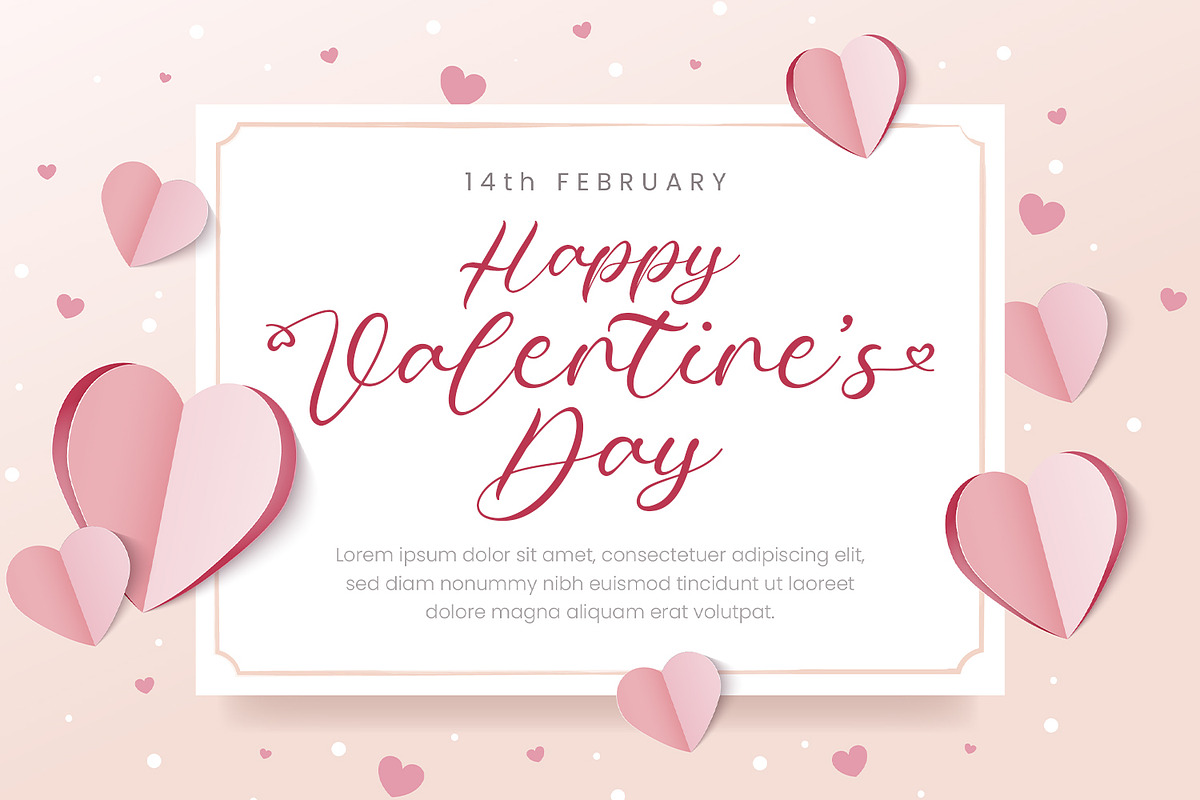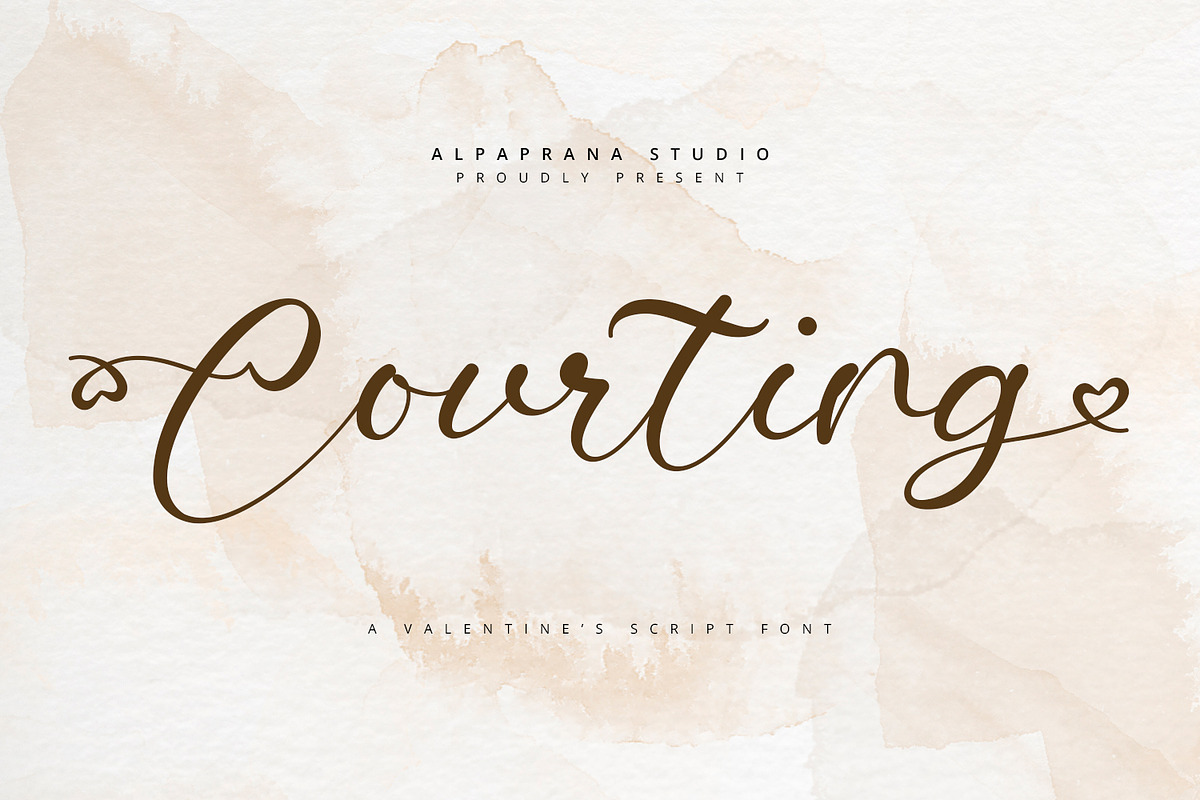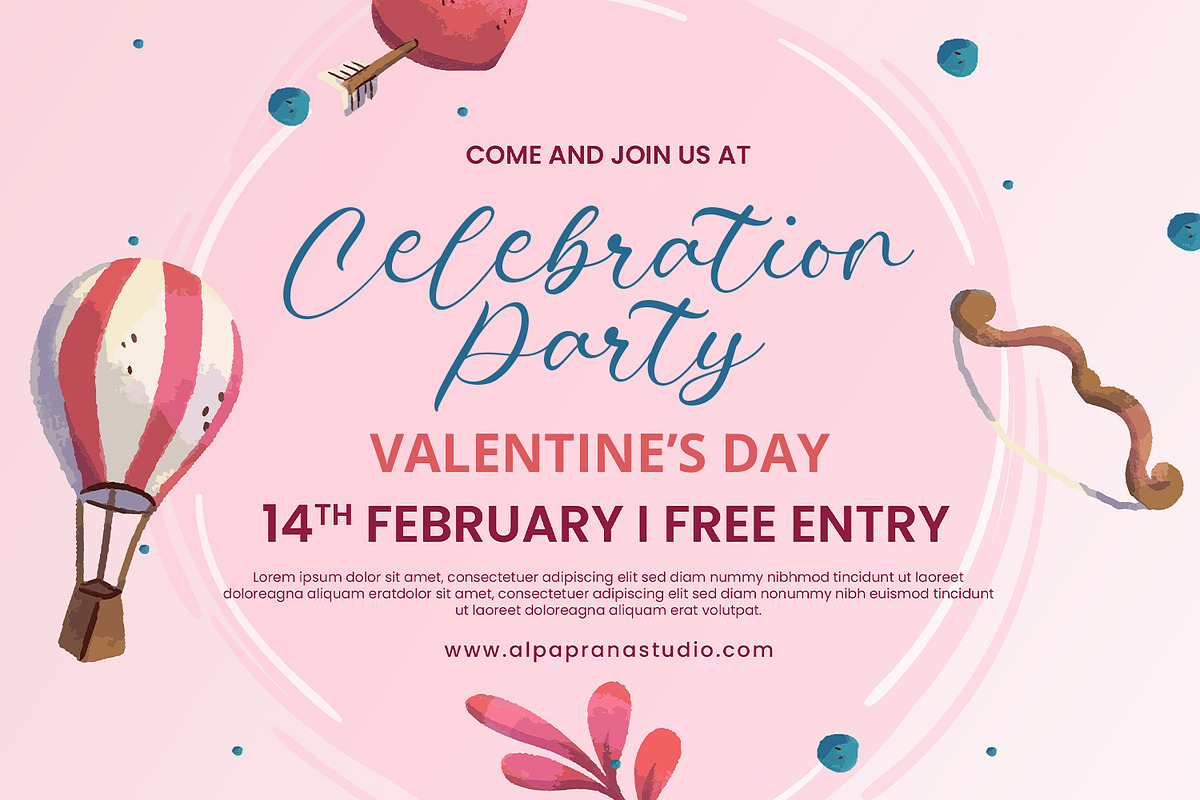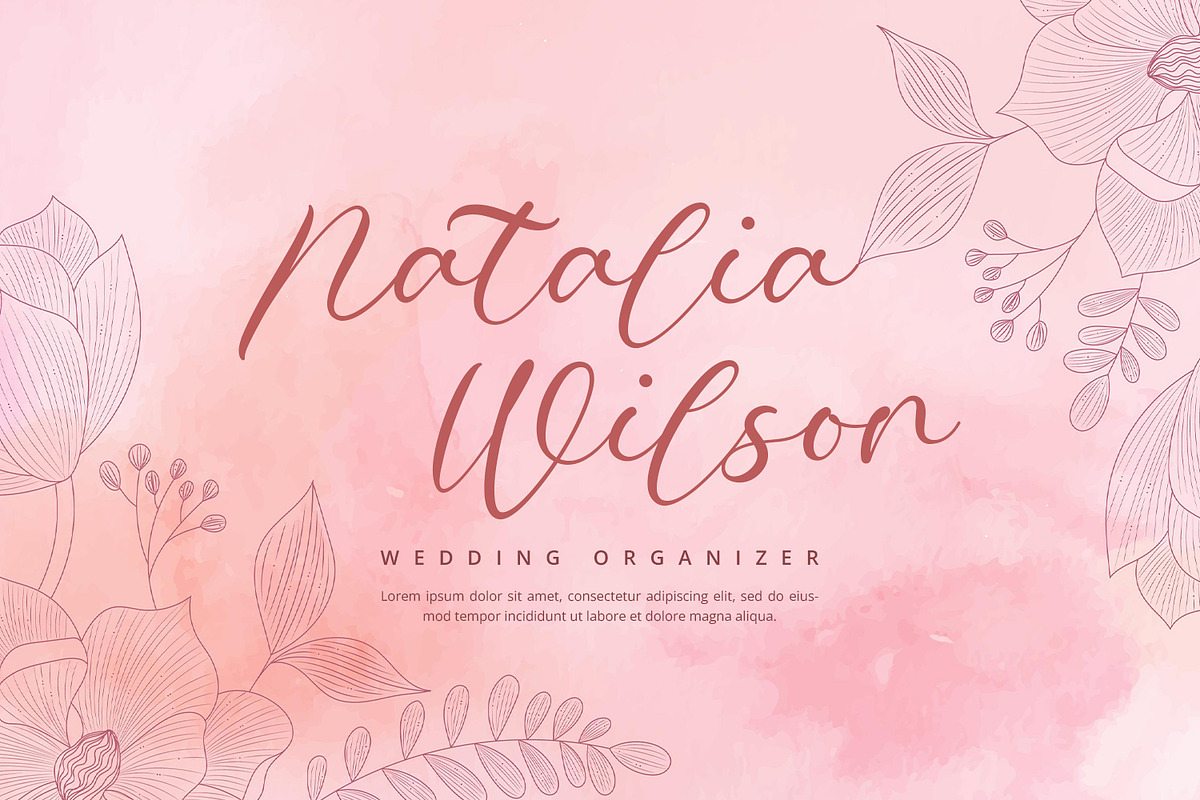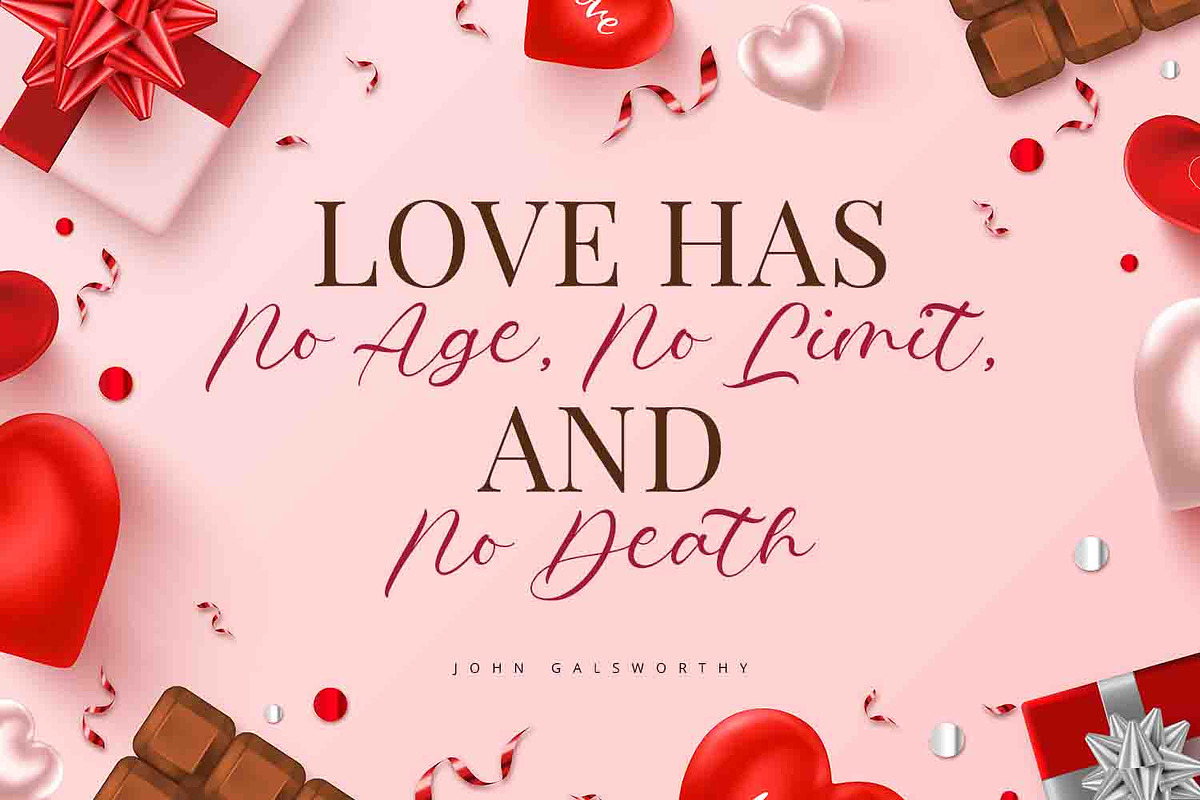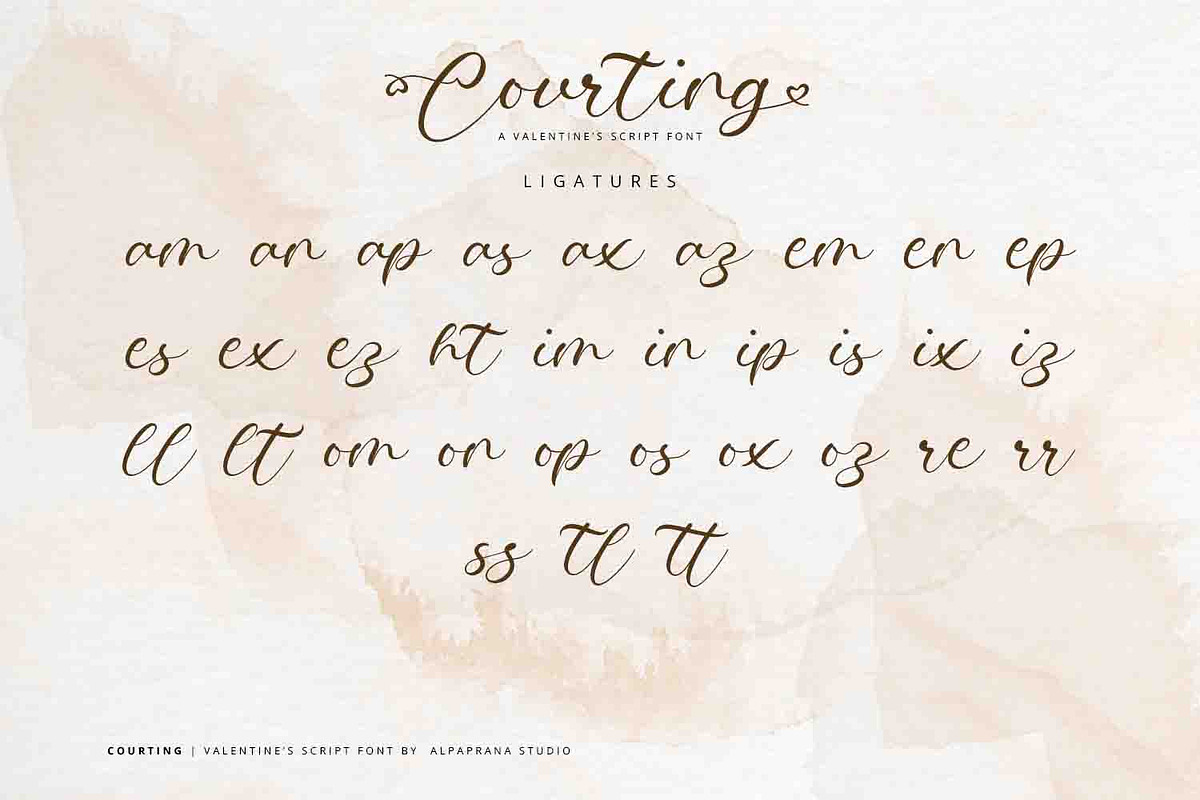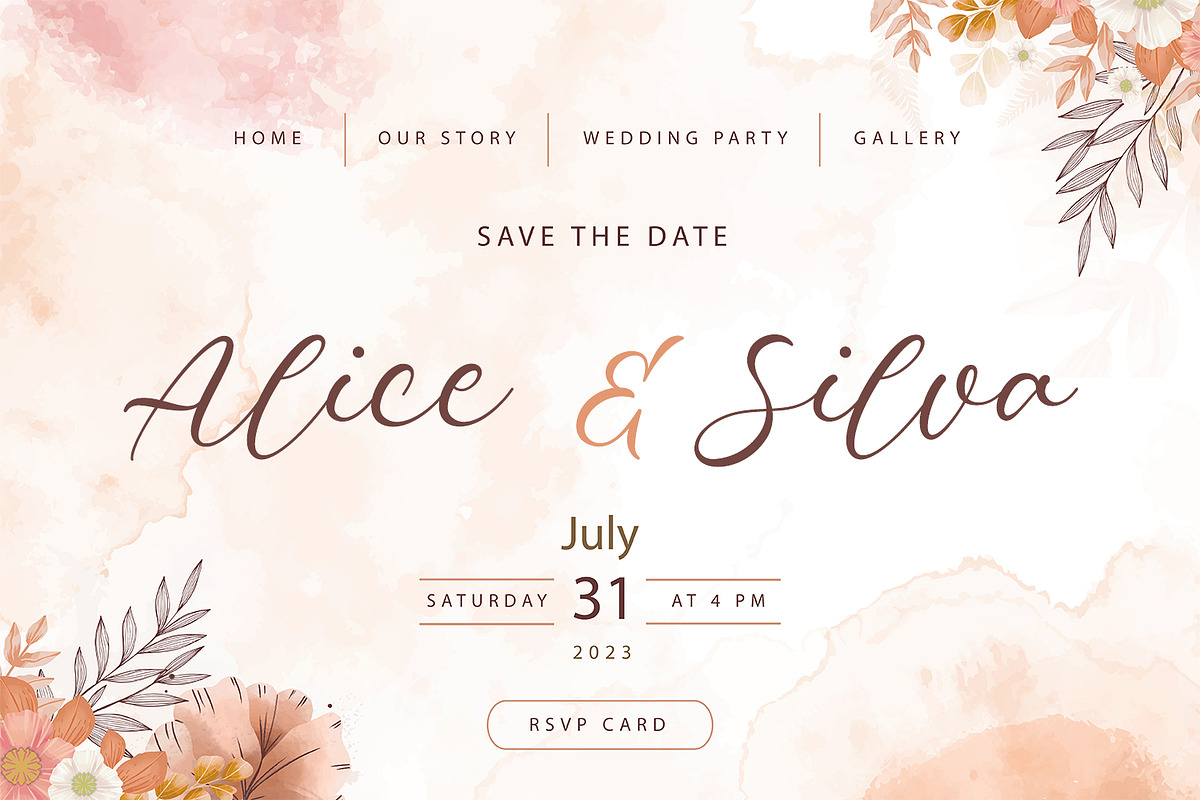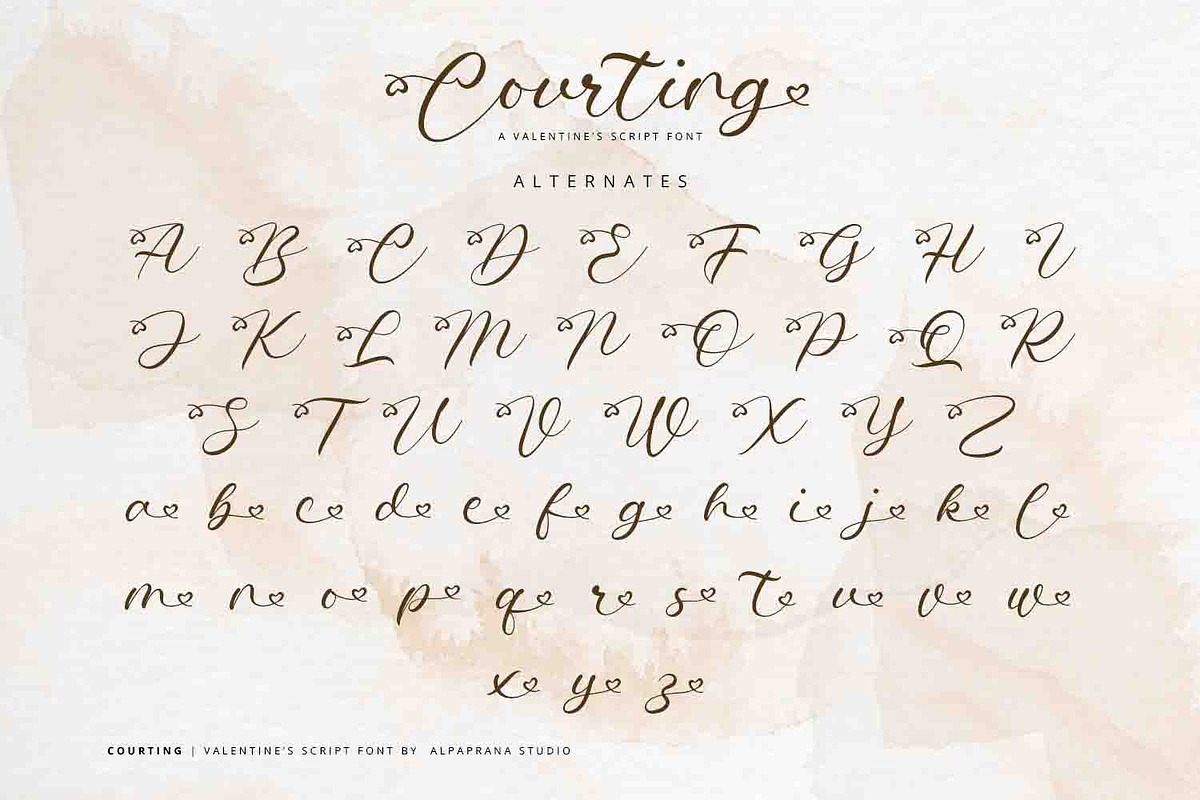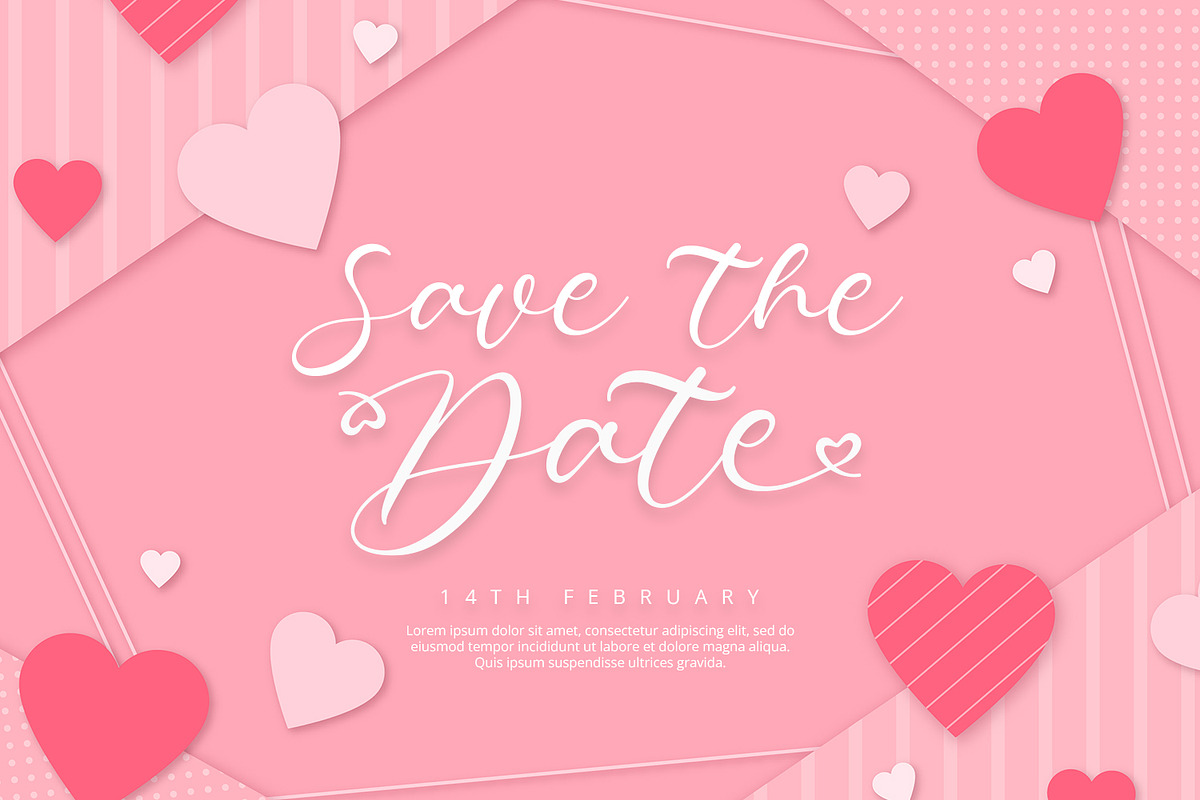
Courting - Script Font
Courting is a valentine script font with romantic and modern feels. It will be perfectly used for Branding, Logo Design, Lettering, Logotype, Clothing, Poster, magazine, packaging, posters, shopping bags, t-shirts, book covers, photography, special events and other design project.